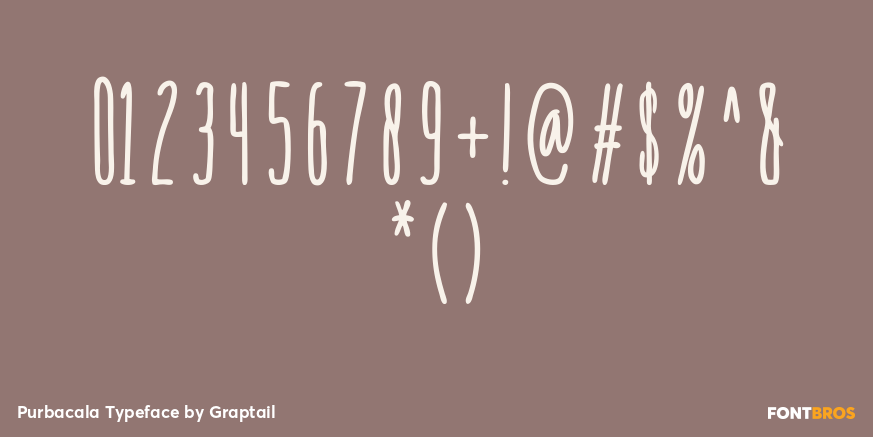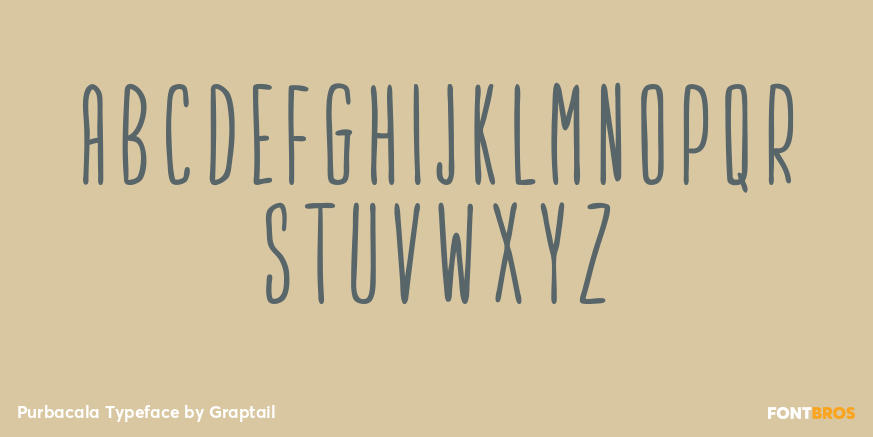
Purbacala Typeface
Font Family by Graptail
Purbacala Typeface is a fun hand drawn display typeface. 3 variations in style offer a special interaction between uppercase and lowercase letters. With its good legibility and quality of glyphs, Purbacala Typeface is the perfect font for creating a tactile feel.
Use for display titles, web, save the dates, and other design projects that need a homemade touch.